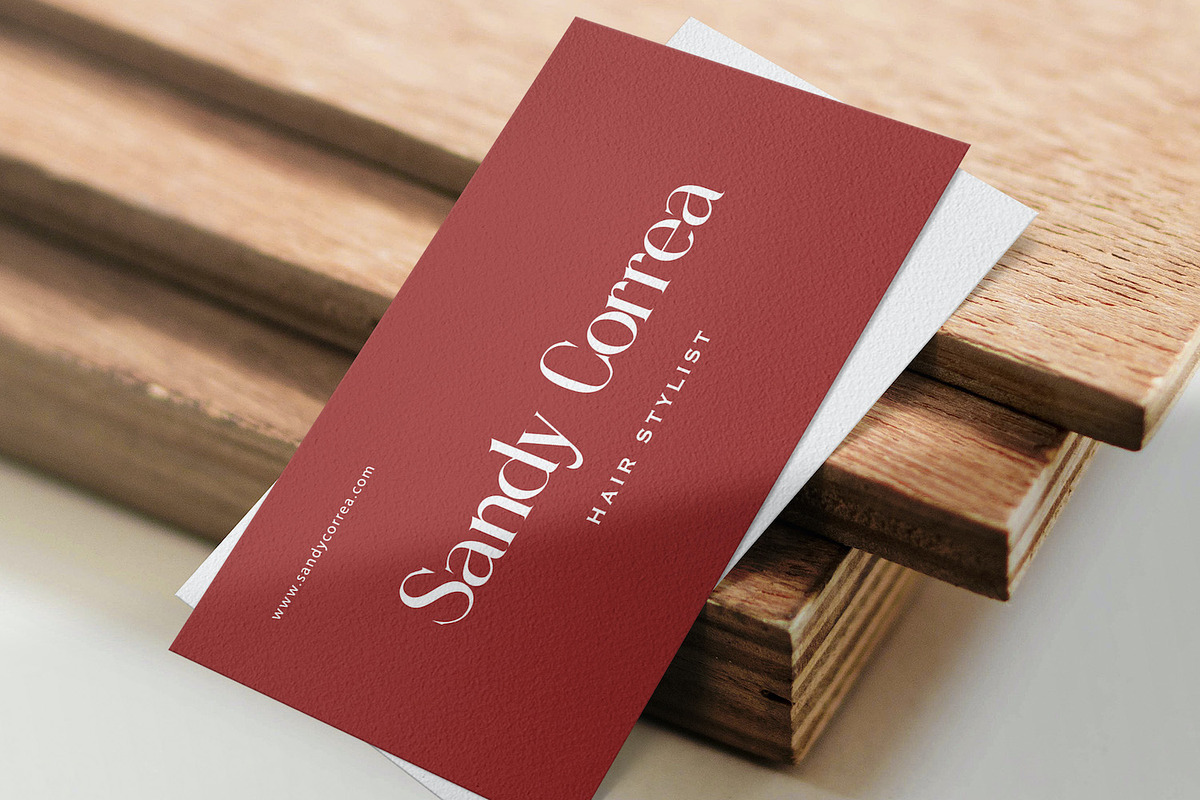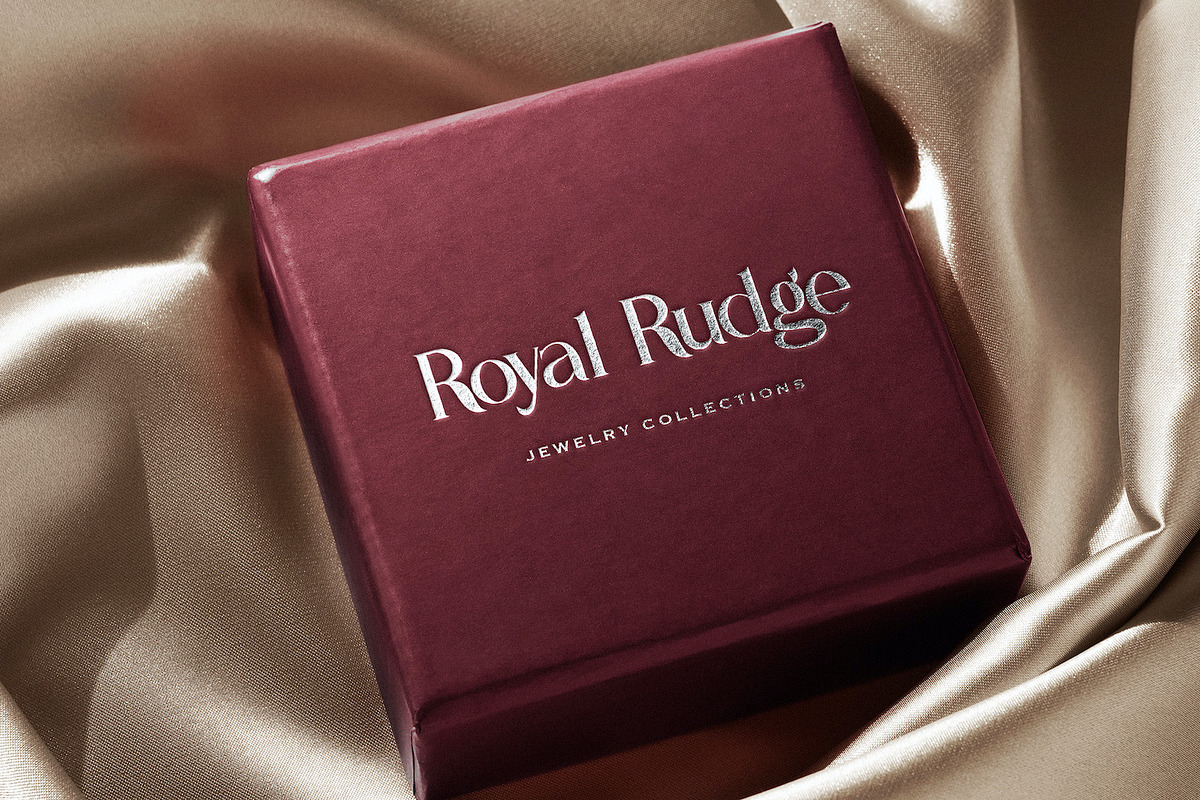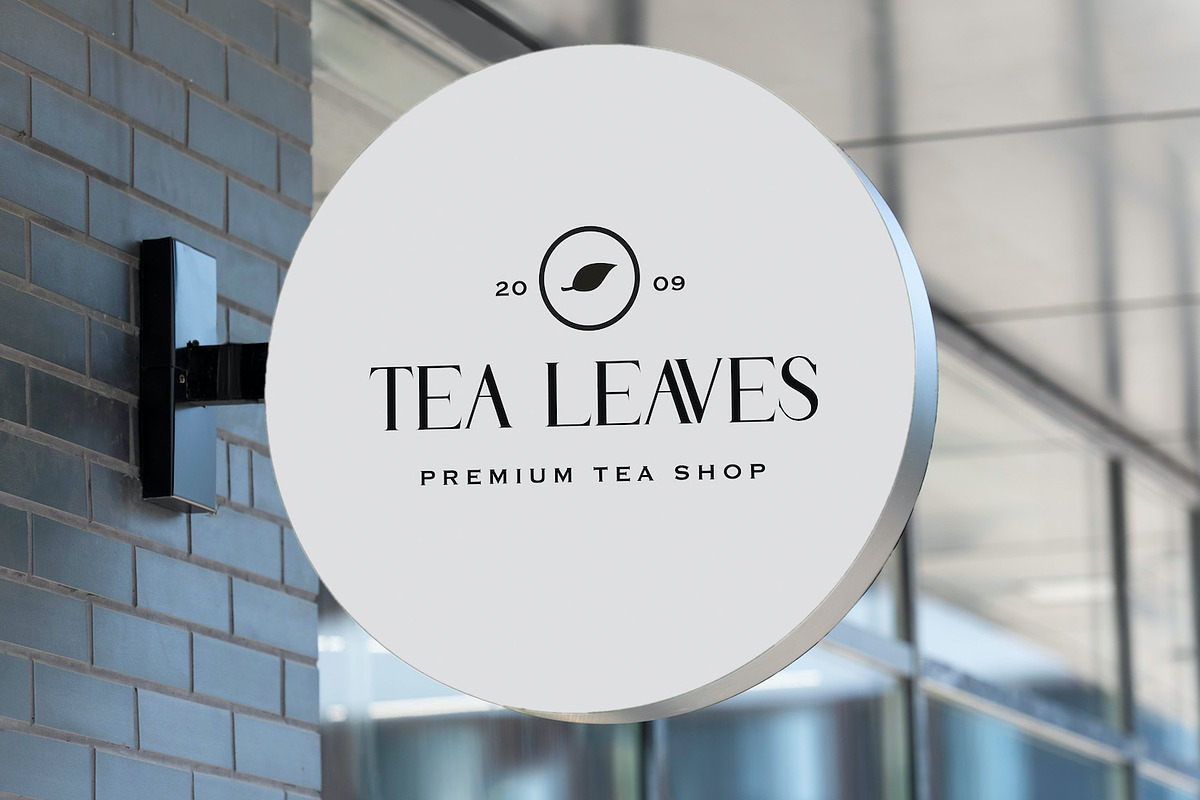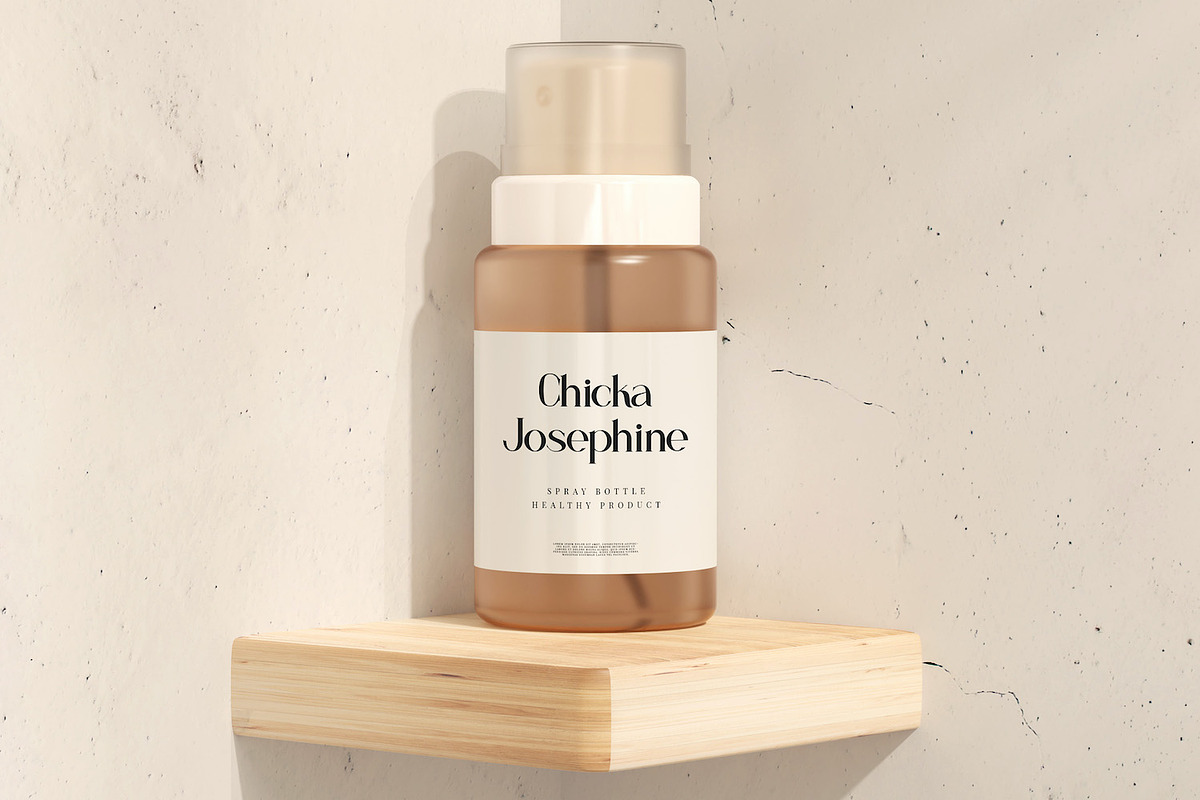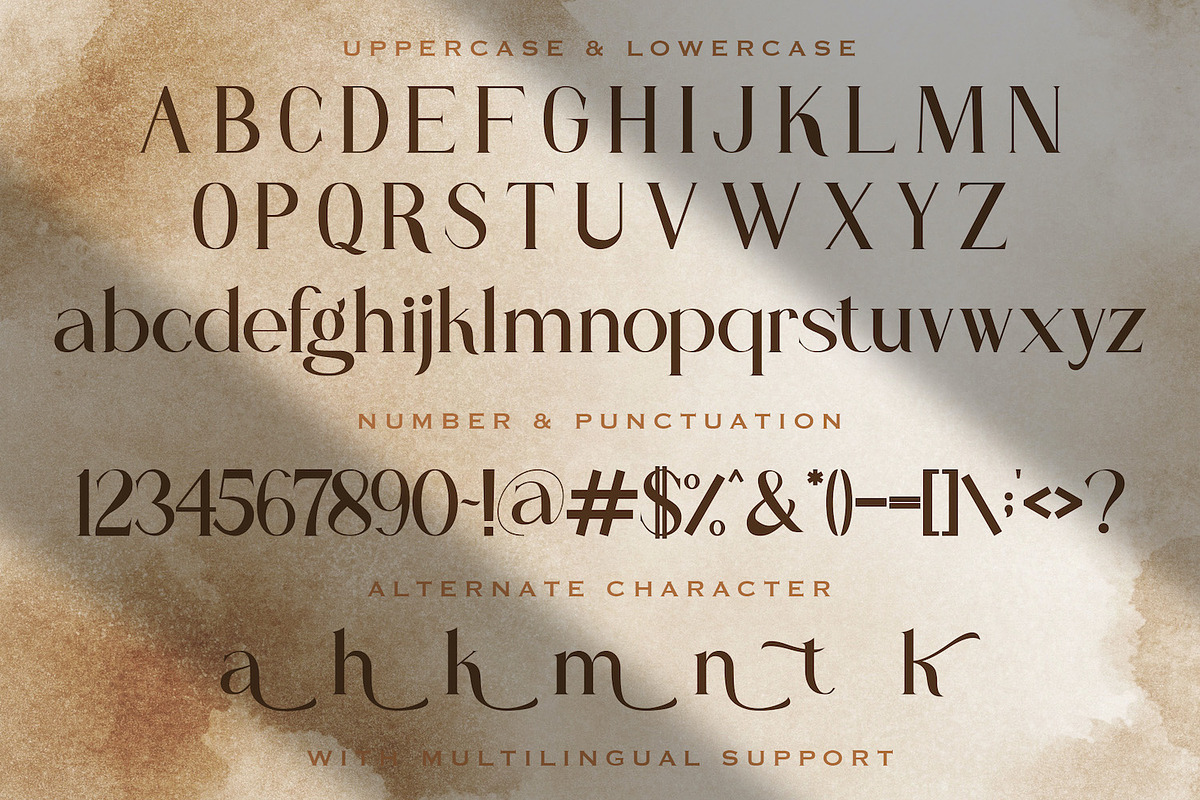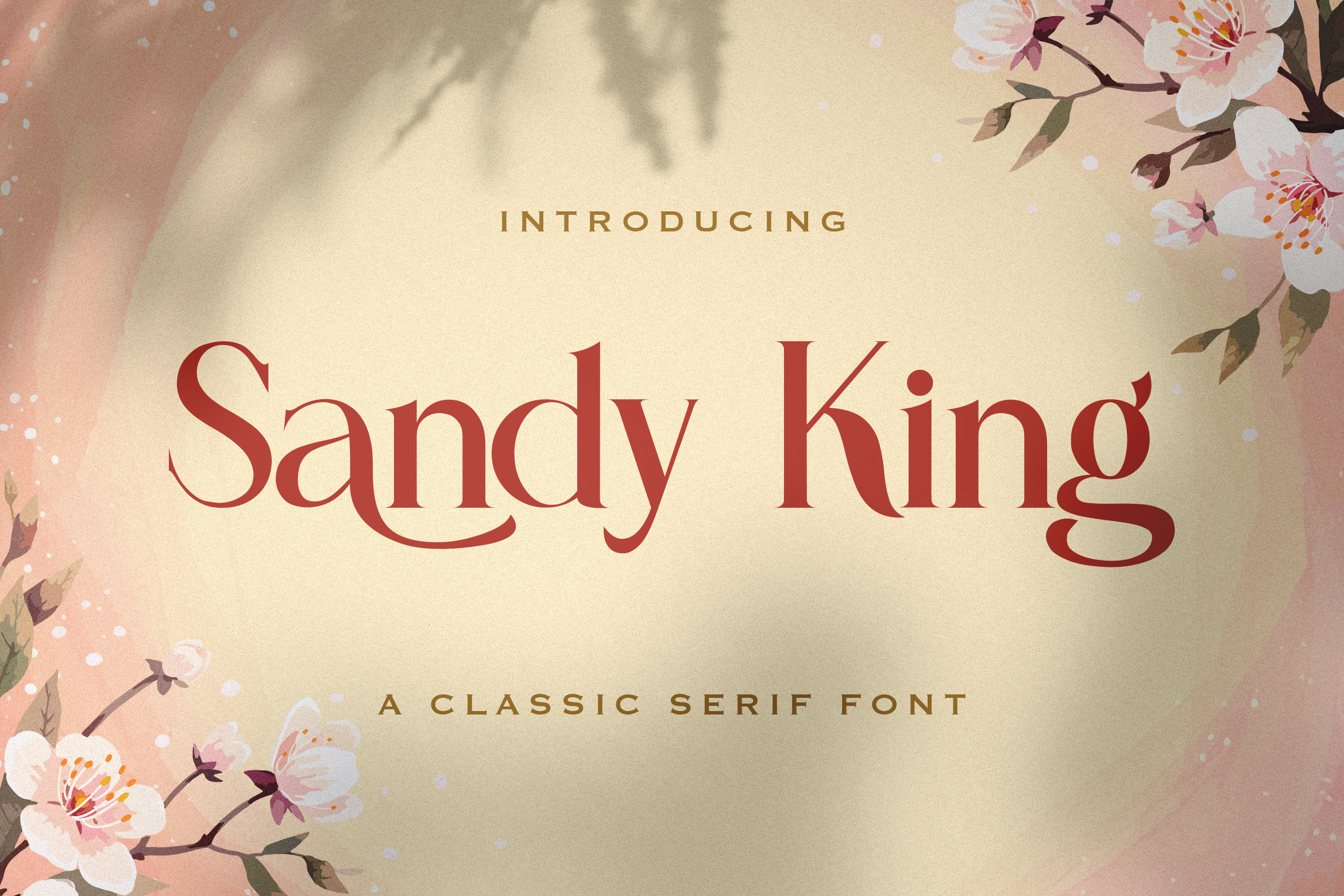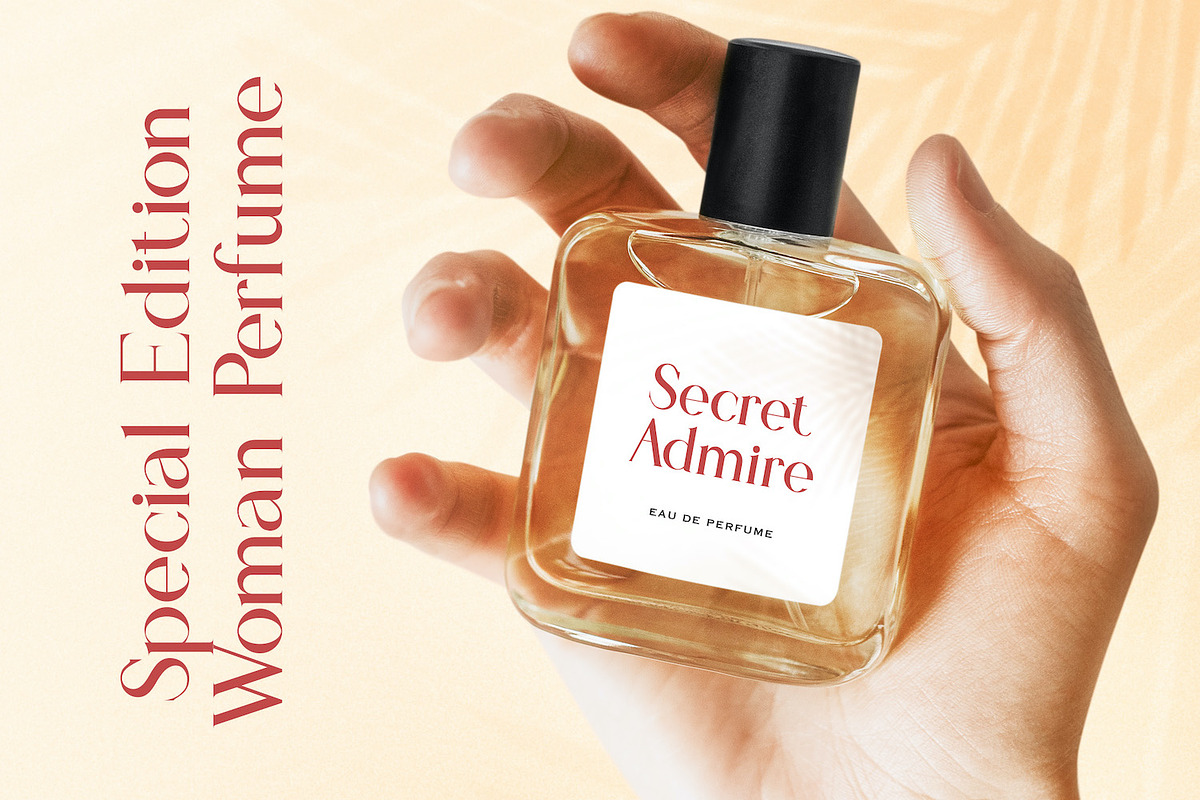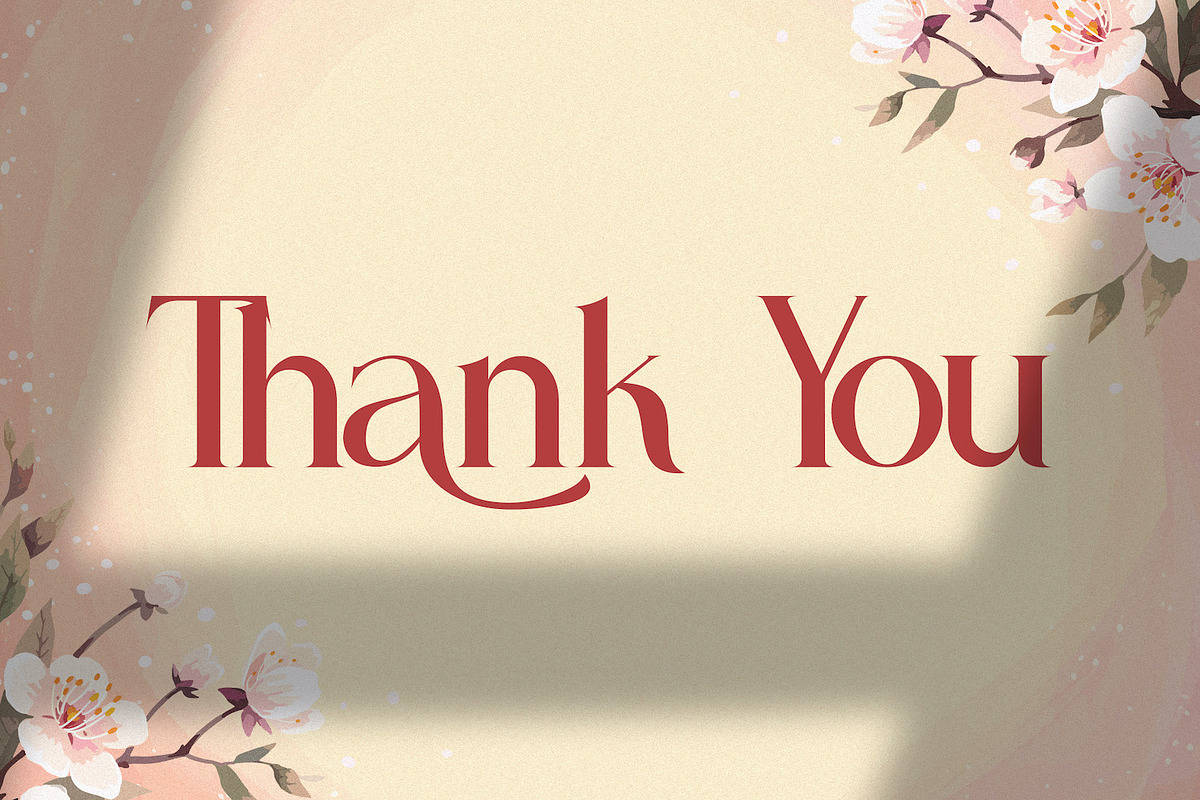
Sandy King - Casual Serif Font
Introducing Sandy King - Casual Serif Font
Sandy King is an authentic and elegant serif font. It can easily be matched to an incredibly large set of projects, so add it to your creative ideas and notice how it makes them stand out!